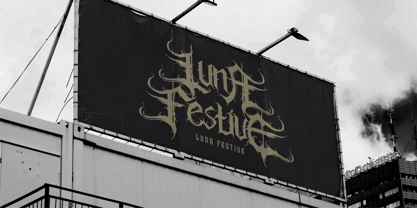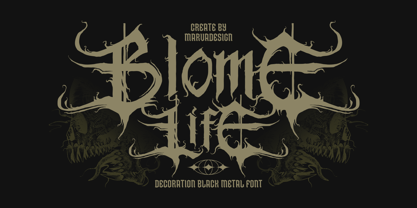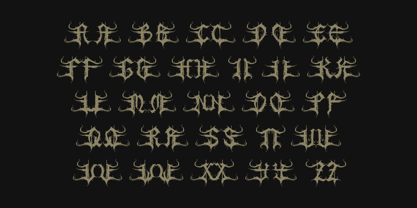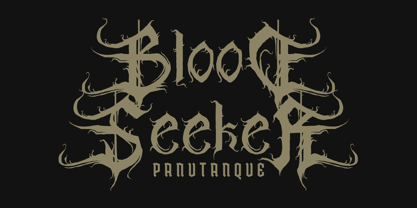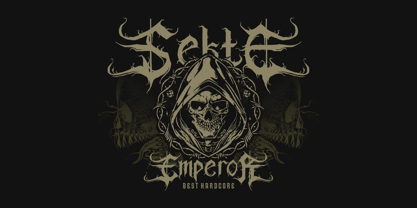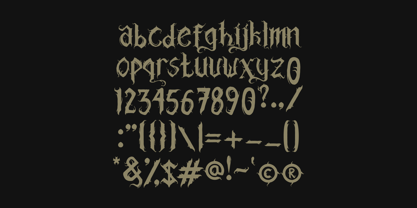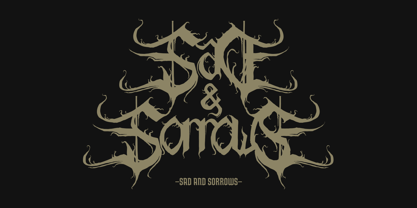
Blome Life
The Blome Life Font Family was designed by Febrie Setiawan and published by Marvadesign. Blome Life contains 1 styles. More about this family
Introducing New Brand Typeface Blome Life is a decorative font that embodies the bold and rebellious essence of black metal aesthetics. The font features intricate, sharp, and dramatic details reminiscent of tattoo-style artistry, with elaborate, almost gothic flourishes that make it stand out.
One of its most striking characteristics is the fiery effect applied to the uppercase letters, giving them a dynamic and intense appearance as if ablaze. This fiery detail adds a sense of movement and heat, making the font particularly captivating for designs aiming to convey energy, power, or raw emotion.
Blome Life's overall design carries the essence of traditional black metal logos, yet it remains versatile enough for other applications, particularly in designs related to music, tattoos, and alternative subcultures. Its aggressive yet artistic curves create a perfect balance between chaos and beauty, ensuring it leaves a lasting impression in any creative project.